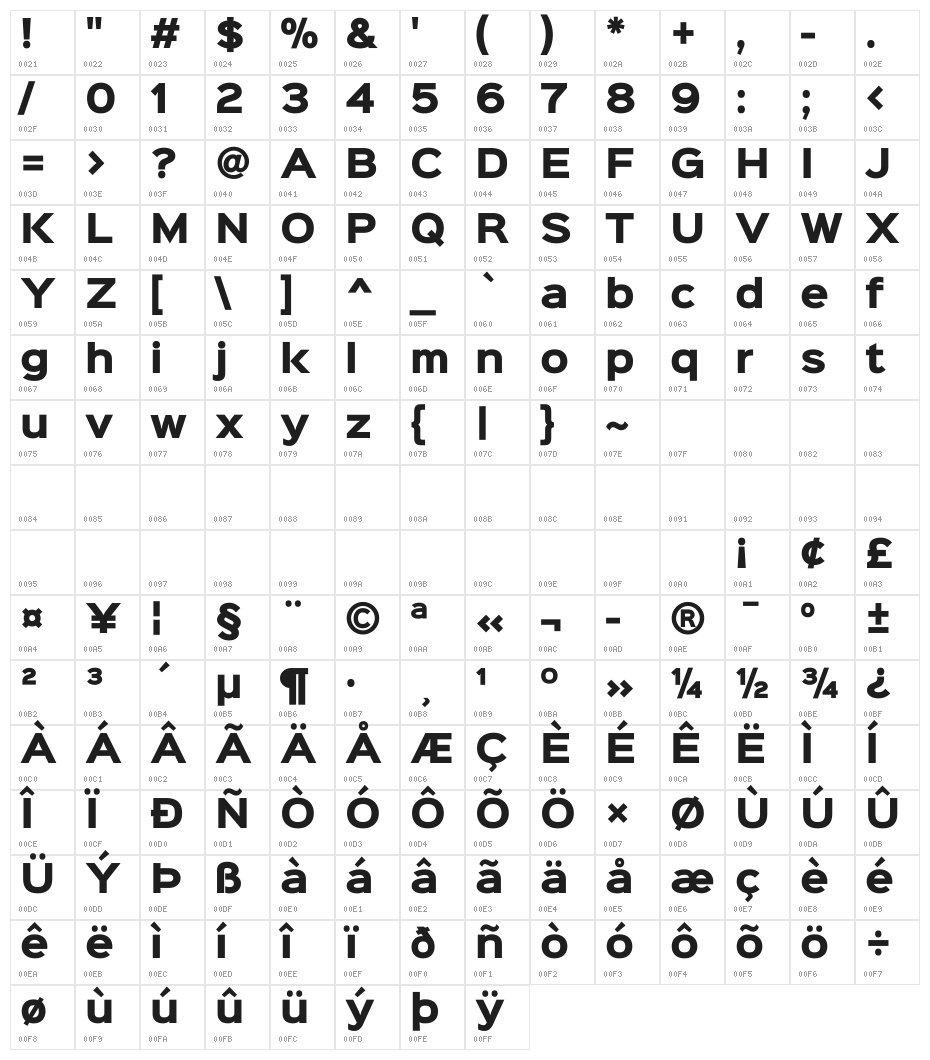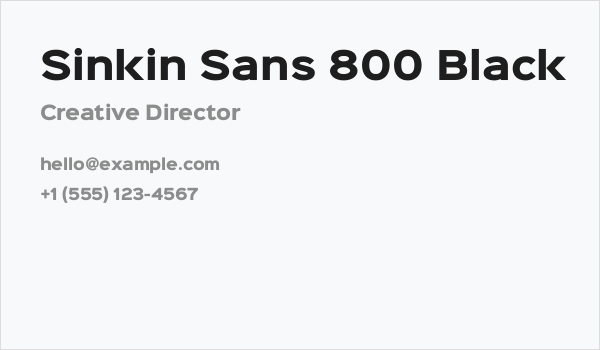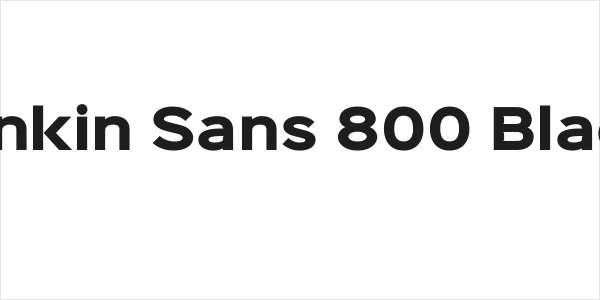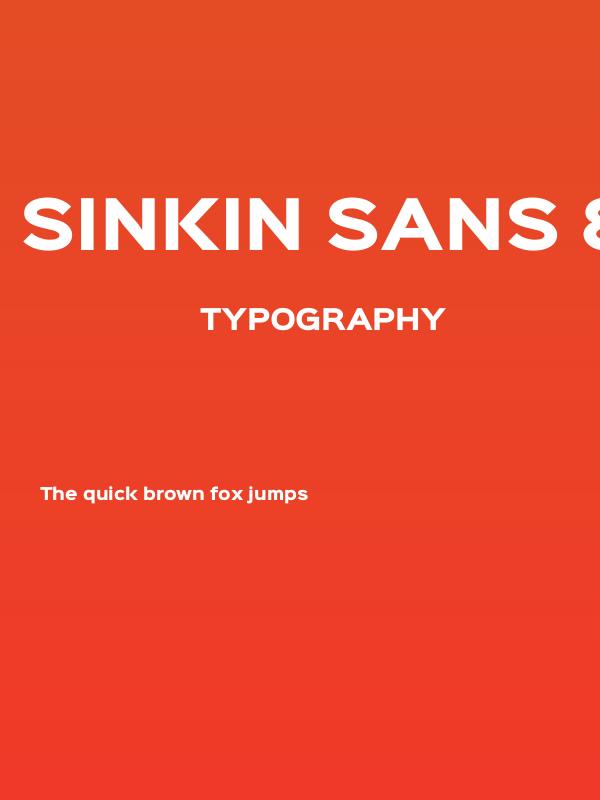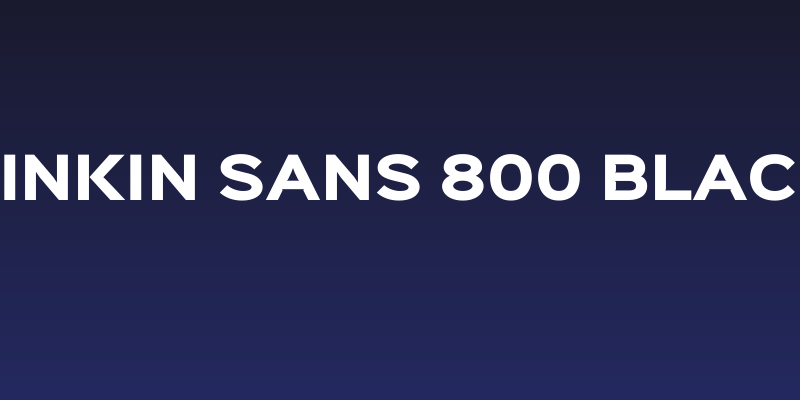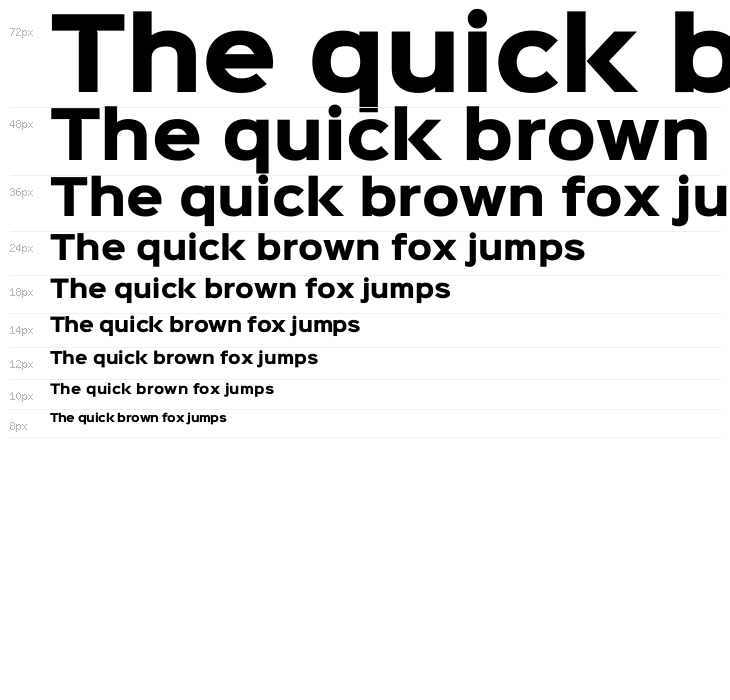
Sinkin Sans 800 Black Font
Sinkin Sans 800 Black Description
This font is a bold, sans-serif typeface characterized by its strong, geometric shapes and clean lines. The uppercase and lowercase letters maintain a consistent weight, providing a uniform appearance across all characters. The numerals and special characters are designed with the same boldness, ensuring readability and impact. The font's modern aesthetic makes it suitable for a variety of design applications, from digital interfaces to print media. Its simplicity and clarity make it an excellent choice for conveying messages with authority and precision.
| Proposed Projects | Ideal for branding, headlines, posters, and digital interfaces where a strong, modern presence is desired. |